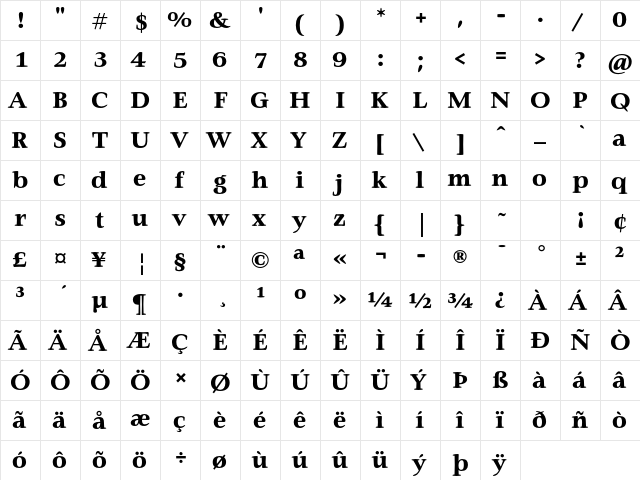
Givens Antiqua Std Black
| Designer | George Ryan |
Design Context for Givens Antiqua Std Typeface
Givens Antiqua Std offers clean, dependable letterforms without strong stylistic allegiance, making it a practical choice for designers who need flexibility.